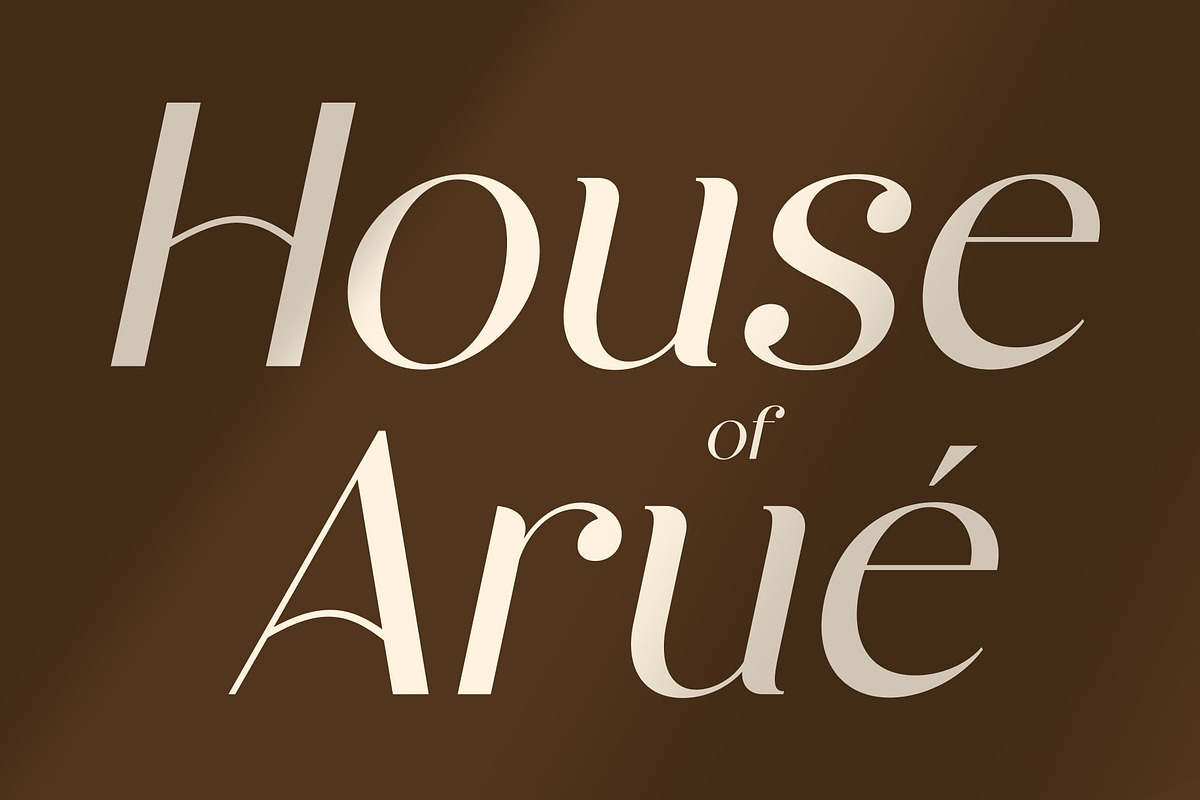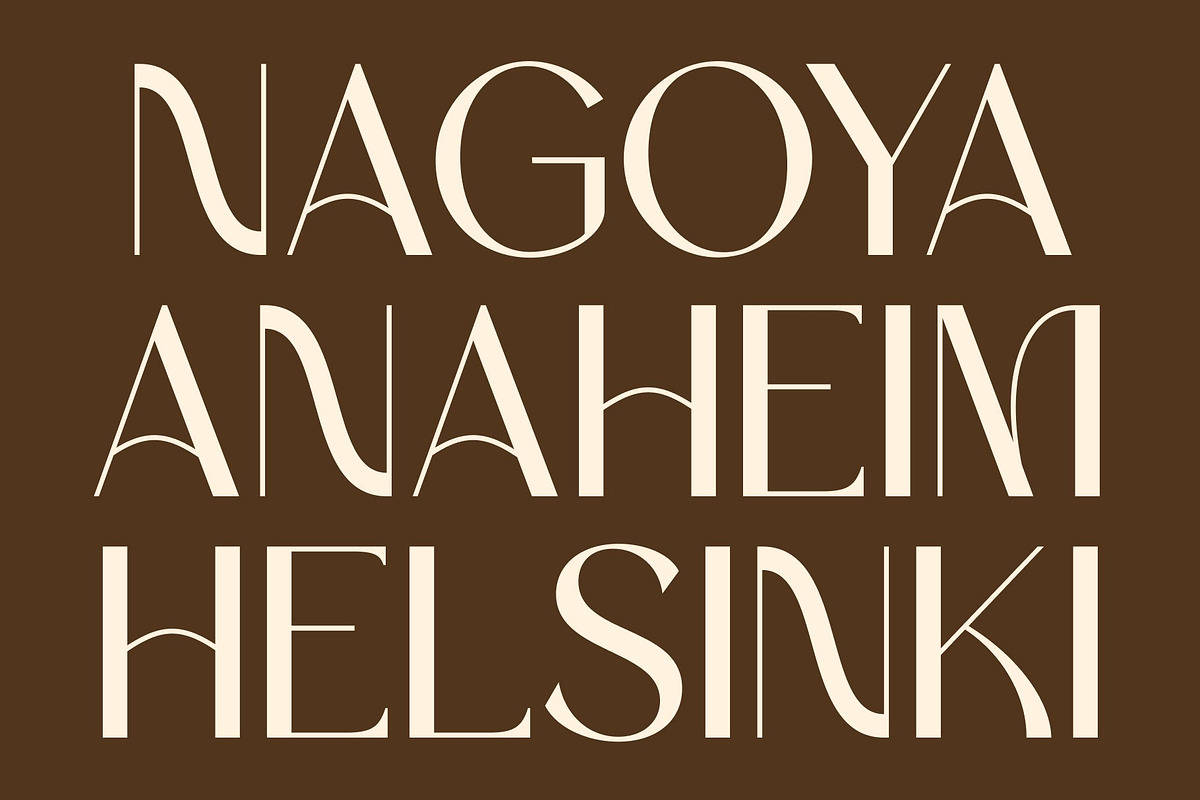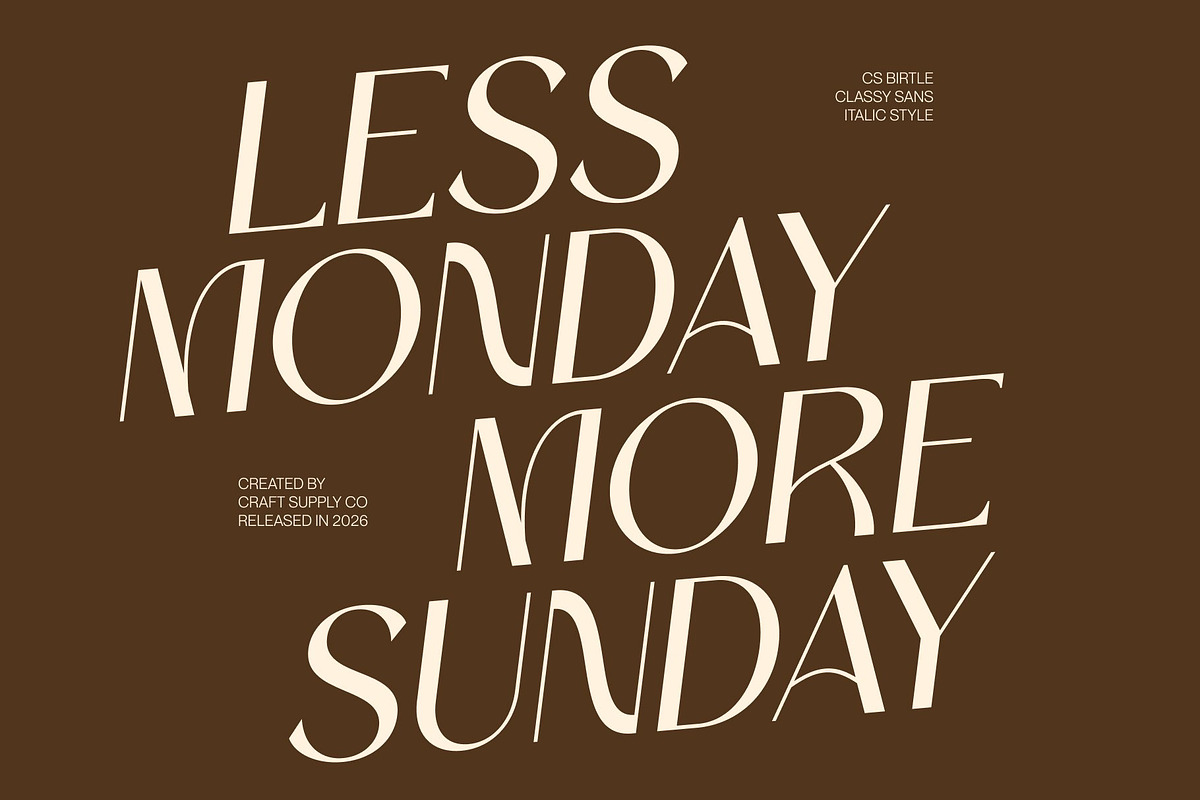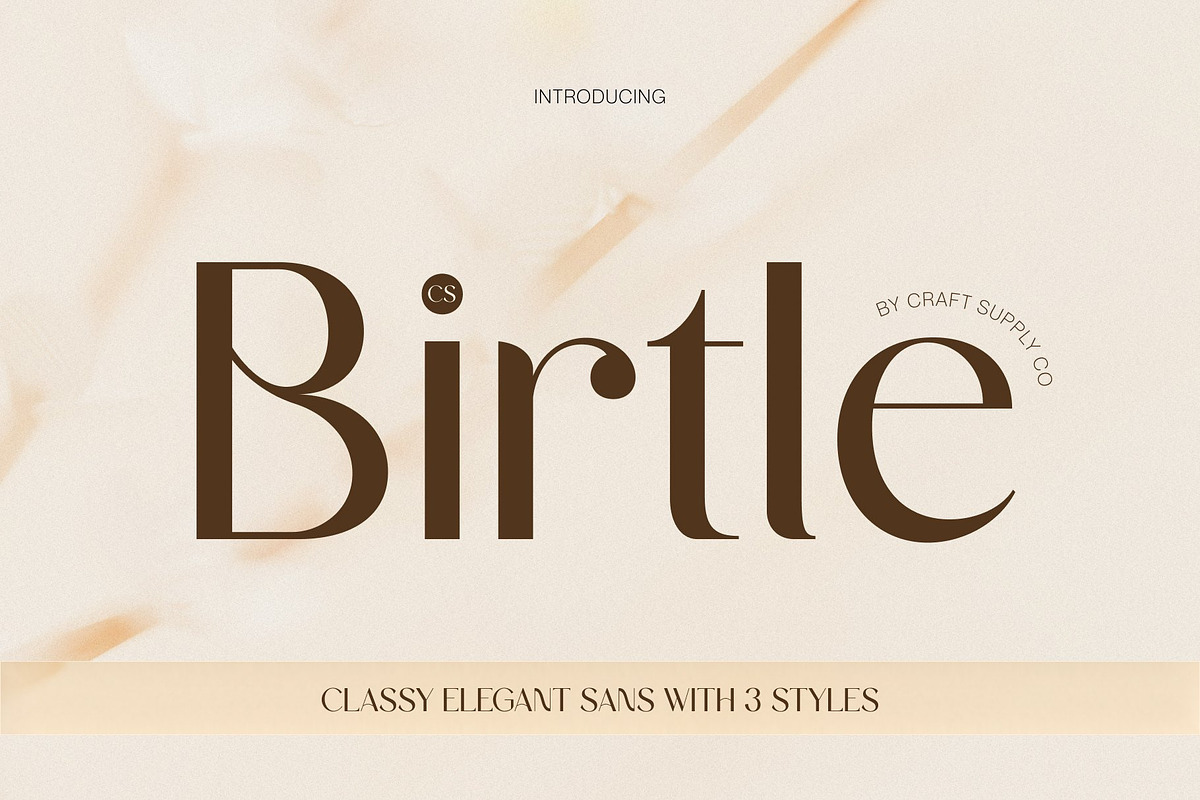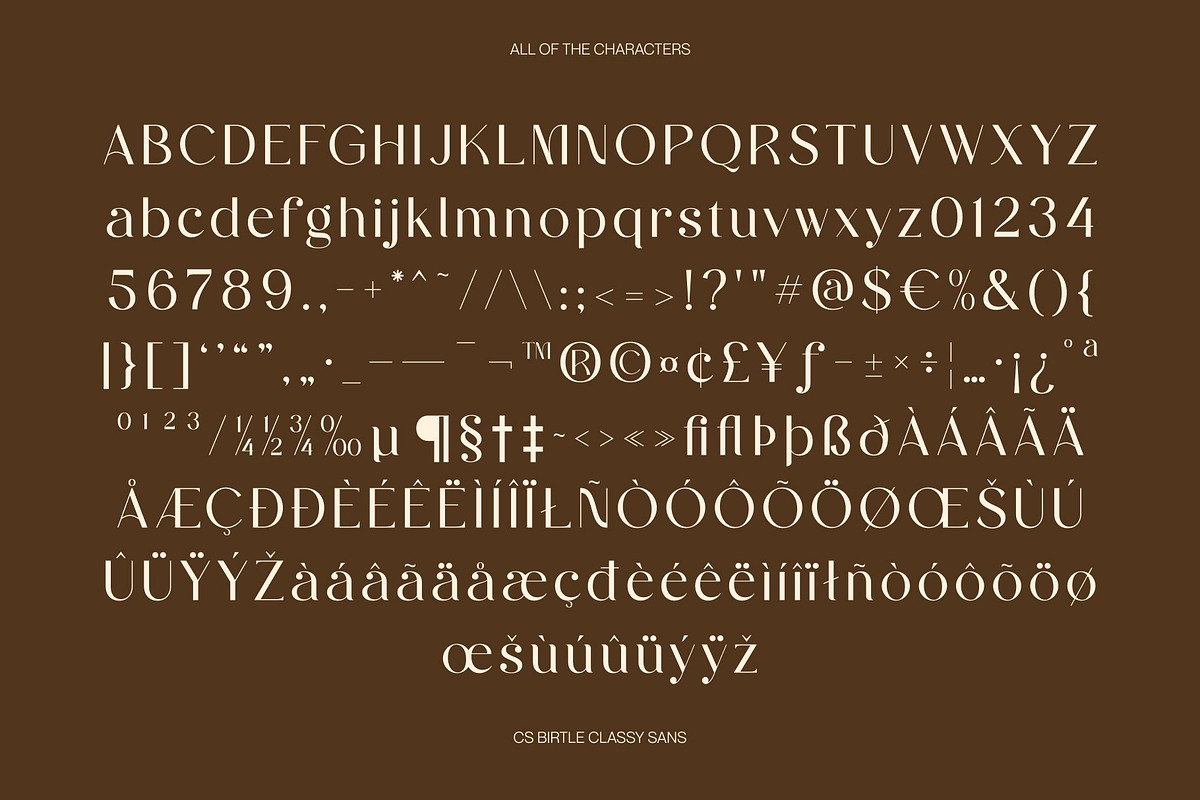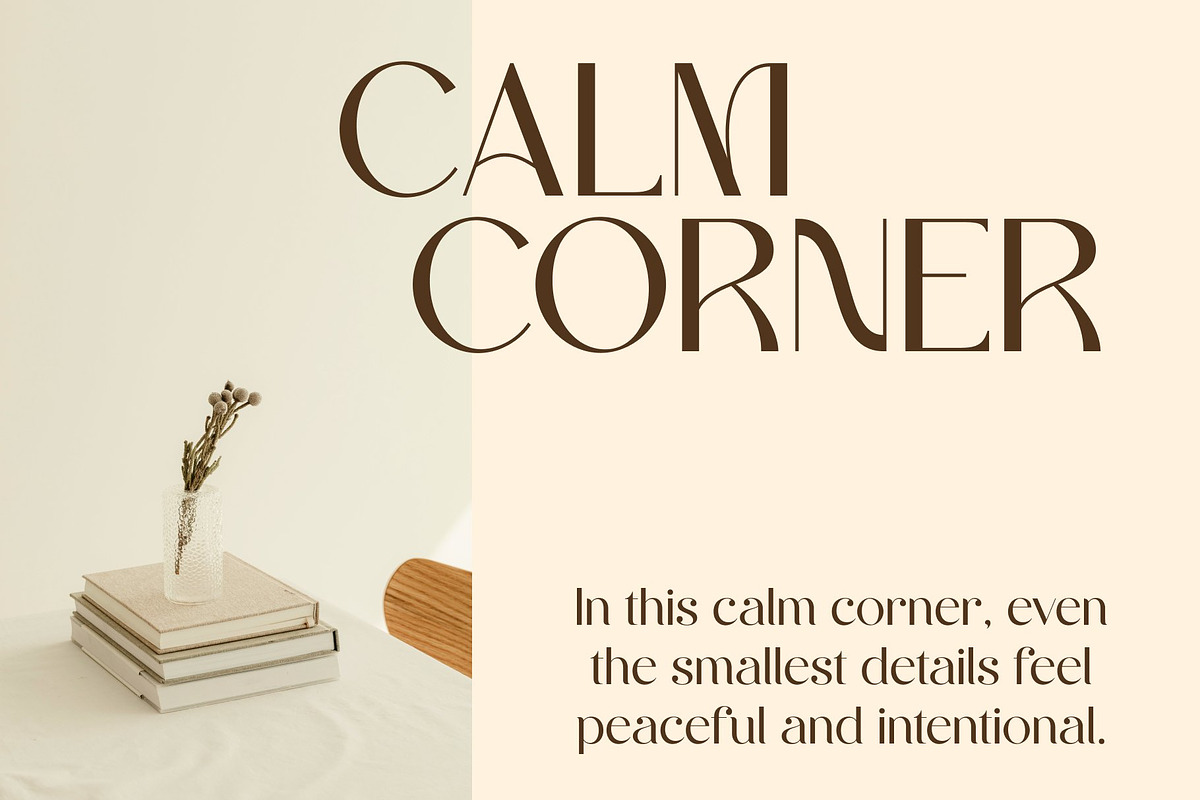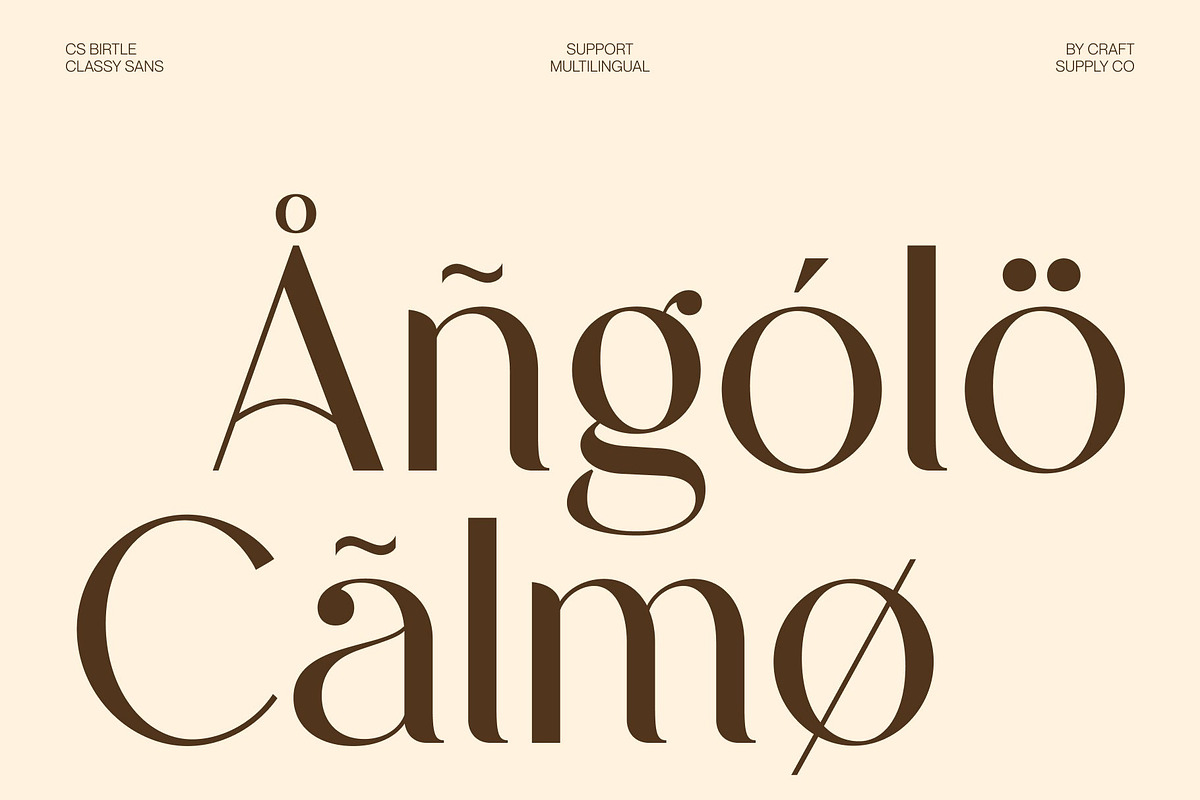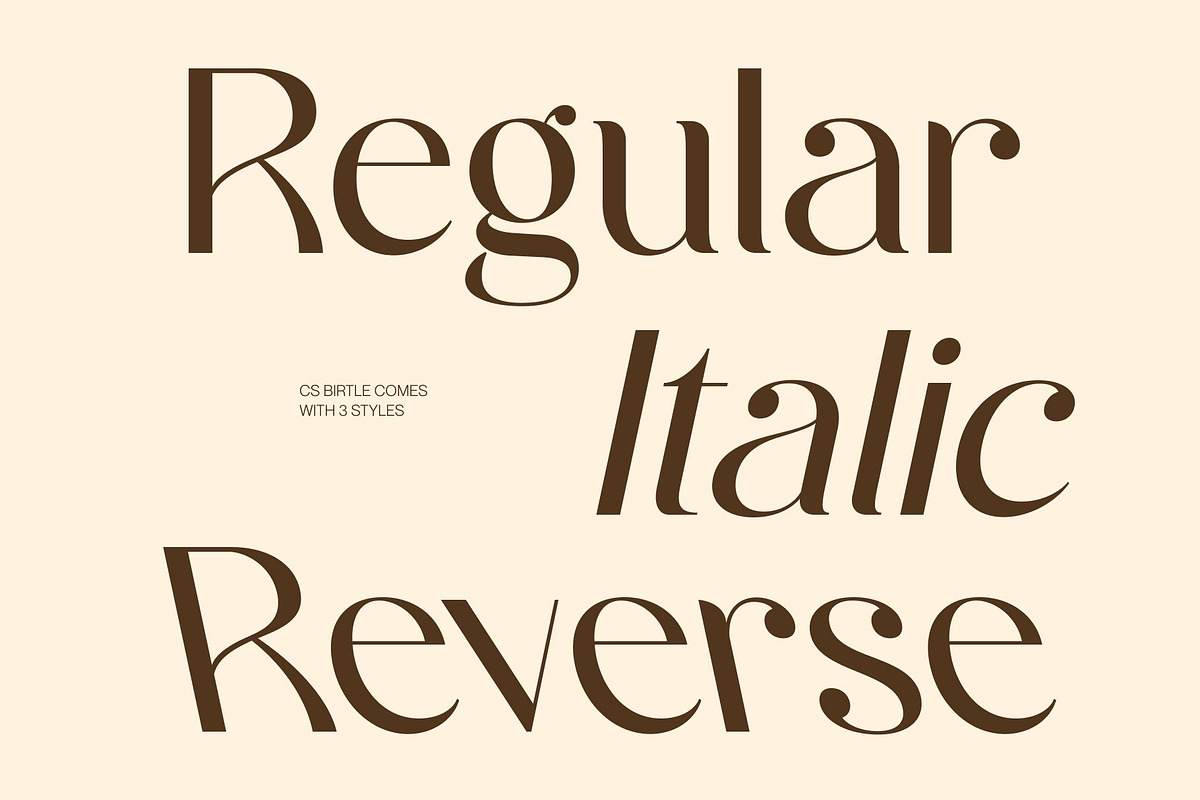
CS Birtle – Classy Sans Serif
CS Birtle – Classy Sans Serif Font: Where Strength Meets Elegant Simplicity
Confident Forms with Refined Clarity This is a classy sans serif font designed with clean lines and balanced proportions that radiate confidence and sophistication. Its refined structure creates a polished and modern appearance, allowing every word to feel clear, elegant, and highly professional. The font’s simplicity becomes its strength, delivering a timeless visual presence with effortless style.
Modern Elegance with Strong Character This font offers a contemporary typographic voice that feels both powerful and graceful. Its carefully crafted letterforms maintain excellent readability while carrying a refined personality, making the font adaptable across a wide range of premium design applications. The result is a typeface that communicates confidence without losing elegance.
Versatile Style for Sophisticated Design This font clean and classy construction makes it ideal for both bold statements and understated compositions. Whether used in large headlines or refined branding elements, the font maintains a sleek and sophisticated tone that enhances modern visual identities.
Perfect for Fashion, Branding, and Editorial Use This is perfect for fashion and beauty branding, visual identities, headlines, luxury packaging, editorials, and modern promotional materials. Its elegant clarity and strong presence make it suitable for logos, magazine layouts, advertising campaigns, and high-end creative projects.
CS Birtle Regular
CS Birtle Italic
CS Birtle Reverse Italic